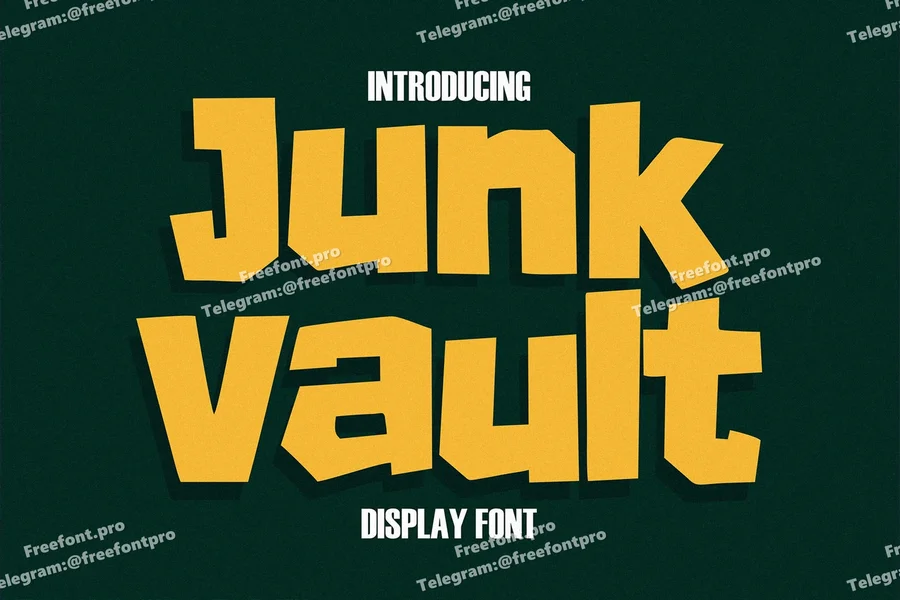
Junk Vault – Bold Display Font
Junk Vault is a confident and powerful bold display font designed for titles that need to stand loud and proud. With its uppercase and lowercase characters, this chunky and expressive typeface adds instant impact to posters, digital banners, headlines, and branding visuals. Perfect for projects that demand bold typography with serious weight.
The Best Bold Display Font for Eye-Catching Layouts Searching for a bold display font that doesn’t hold back? Junk Vault is built to deliver strength and stability in every character. It’s ideal for creative visuals, gaming covers, branding headers, and event titles where boldness is key. The font’s geometric construction and slightly rugged edges give it a modern, dynamic personality—perfect for high-impact results.
Multilingual Support Included Junk Vault supports multilingual characters, allowing you to confidently use it across global campaigns. Whether your message is in English, French, German, or Spanish, this multilingual bold display font ensures consistency in style and legibility across regions.
Key Features
🔡 Uppercase and Lowercase Letters
💪 Bold Display Style with strong visual weight
🌍 Multilingual Support for global use
🎯 Ideal for posters, headers, games, and creative branding
🎨 Designed for bold, high-impact visual communication
Why Designers Love Junk Vault Designers love Junk Vault for its confidence and clarity. Its blocky structure makes every word feel grounded and assertive—great for designs that need to be seen from a distance or grab attention fast. It’s a go-to font when you want a bold and reliable display typeface with an edge.
Give Your Typography a Bold, Modern Makeover If you’re building visuals that need to dominate the screen or page, Junk Vault is your weapon of choice. With its sharp structure, multilingual support, and clean boldness, it’s more than just a display font—it’s a visual powerhouse. Download Junk Vault today and build your message with strength and style.